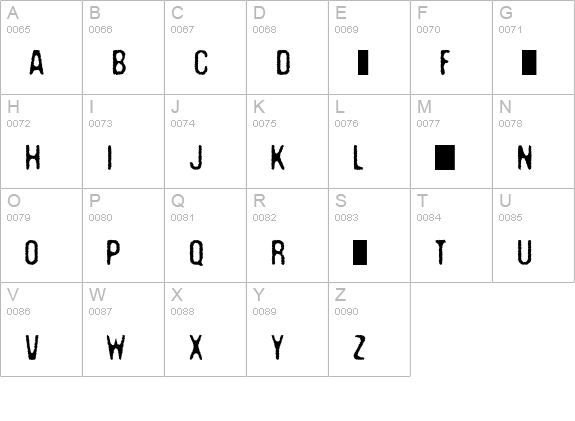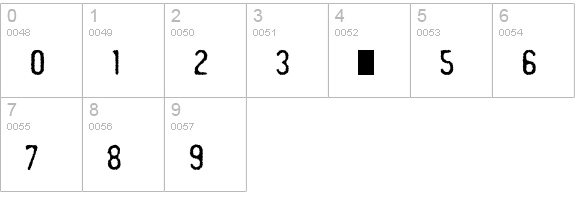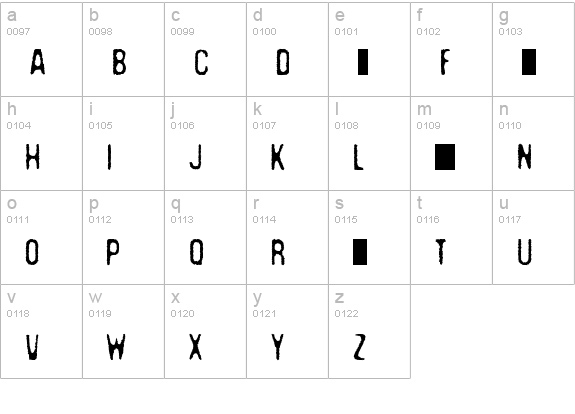
Introducing Crack DEMO font, a stylish and modern typeface perfect for making a bold statement in your designs. This eye-catching font features cracked details that add a unique touch to any project. Whether you're creating posters, logos, or social media graphics, Crack DEMO font is sure to grab attention and leave a lasting impression. The best part? Crack DEMO font is available for free download at FontsMarket.com. So go ahead and unleash your creativity with this striking typeface without breaking the bank. Embrace the edgy vibe of Crack DEMO font and watch your designs come to life with its distinctive charm. Download it today and let your creativity shine!